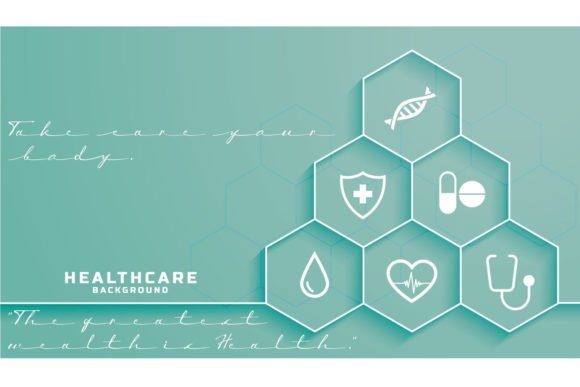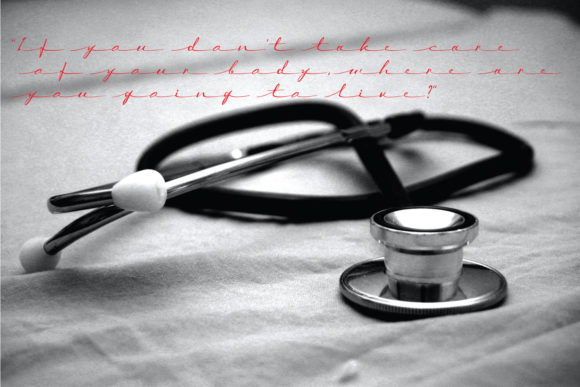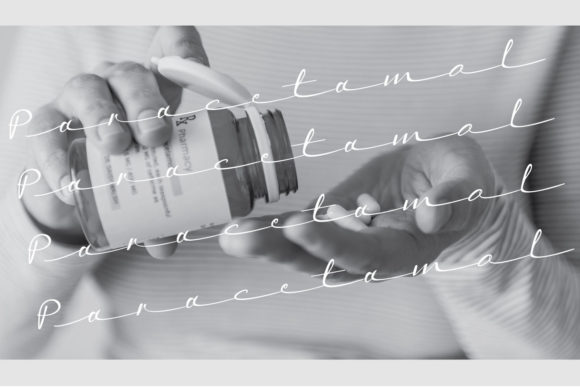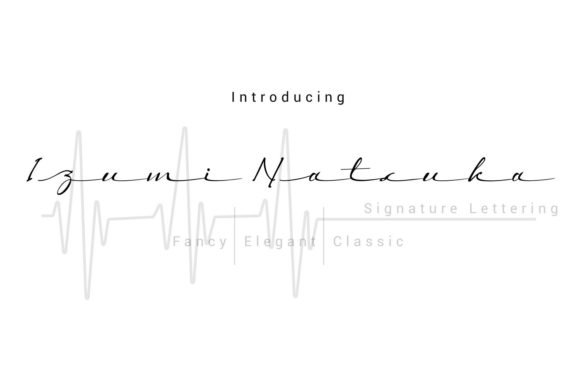
Introduction to Izumi Natsuka Font
Izumi Natsuka is a delicate, flowing and well-balanced script font.
This font was particularly crafted for those who need a beautiful and refreshing look to their designs .